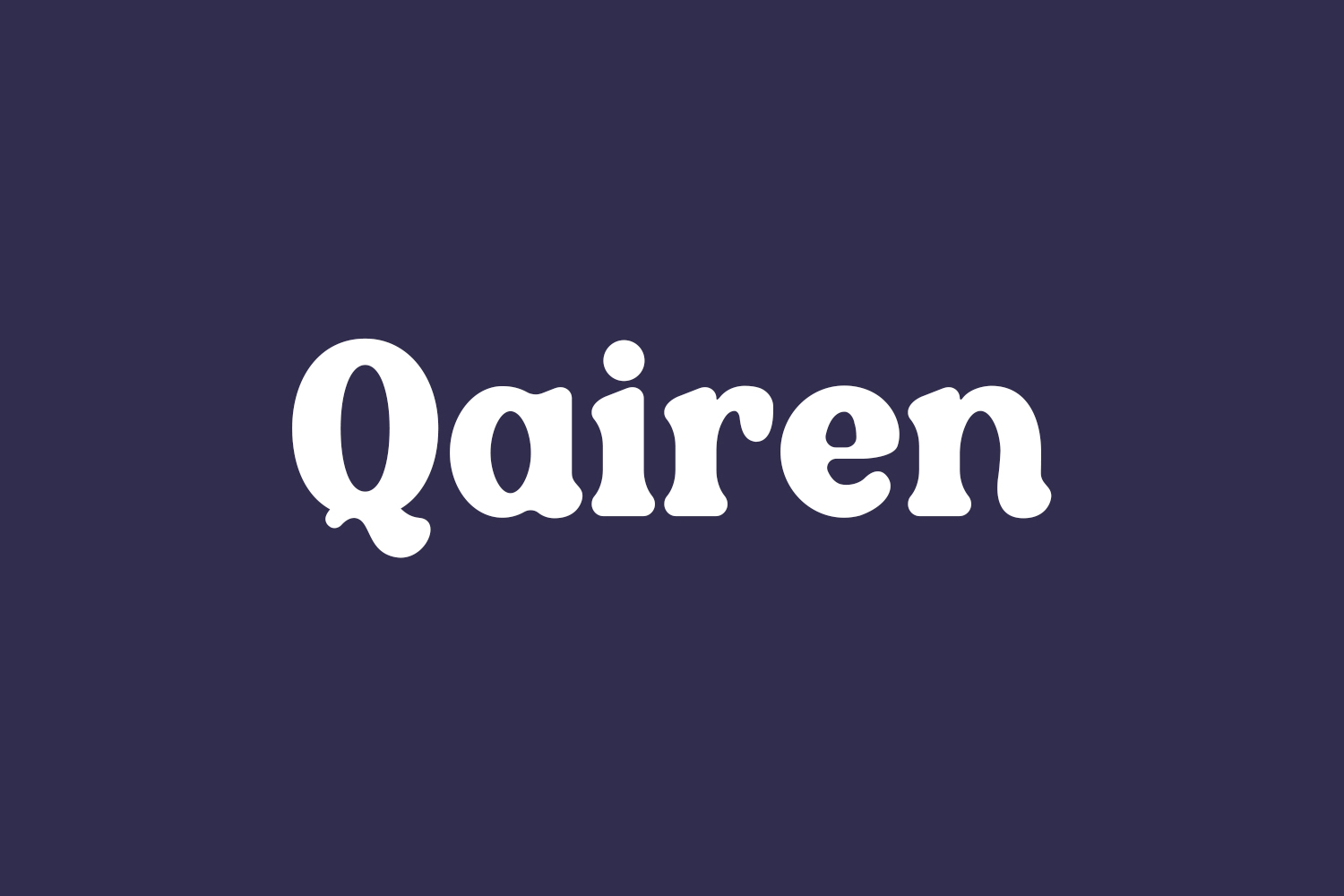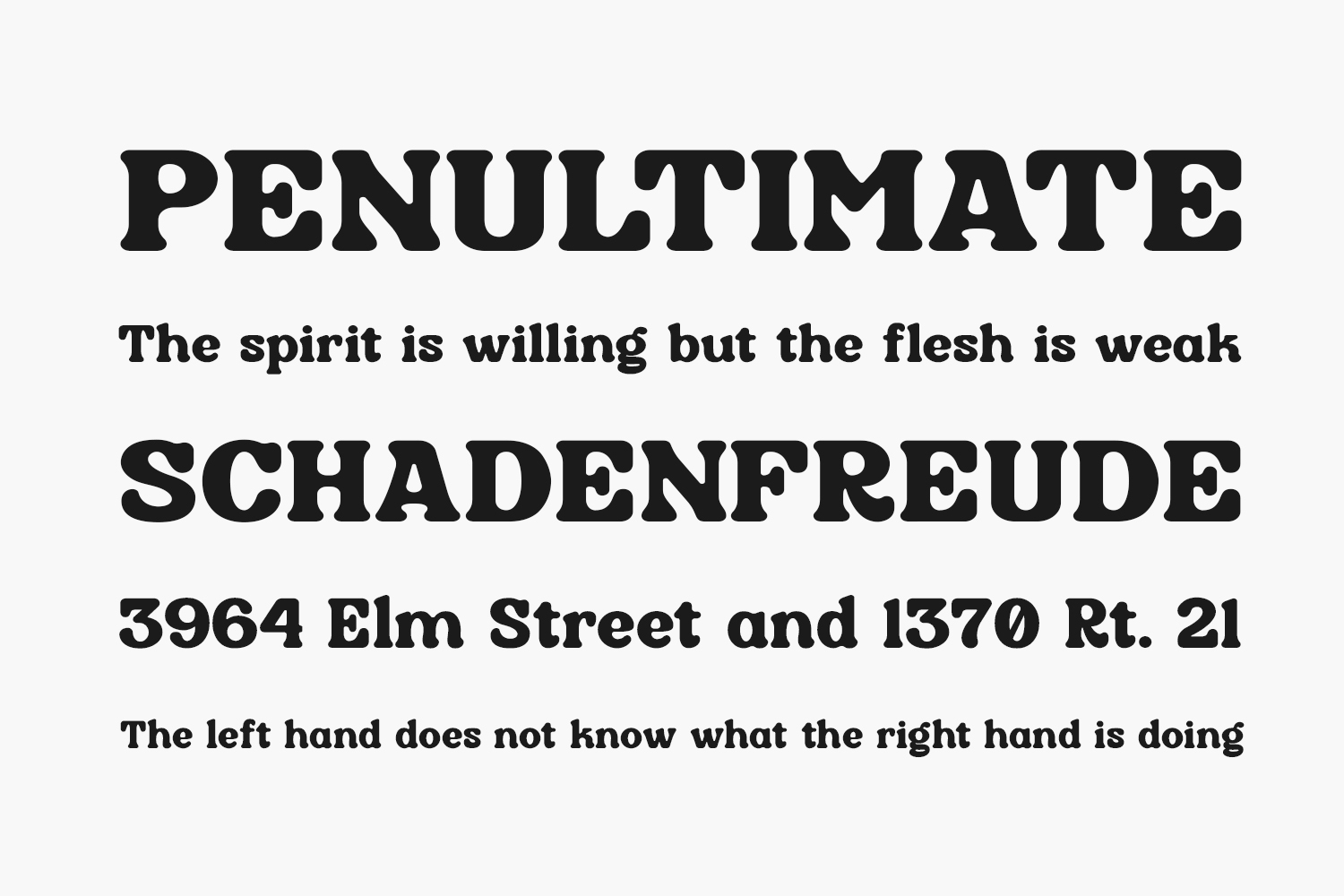
Qairen Free Font is a timeless typeface boasting a distinctive style and contemporary aesthetic. This versatile font is ideal for creating sophisticated and upscale logos, designing captivating book or movie titles, establishing a strong presence for fashion brands, enhancing the appeal of magazines, elevating clothing designs, crafting beautiful lettering, and bringing inspirational quotes to life. Unlock the limitless possibilities with Qairen. Qairen Free Free Font is free for personal use only. Please purchase the full version for commercial use.